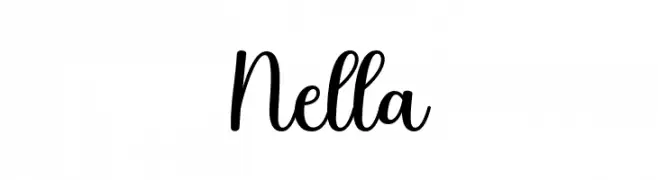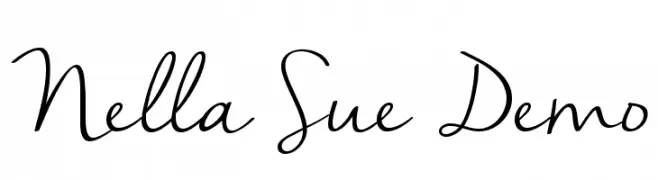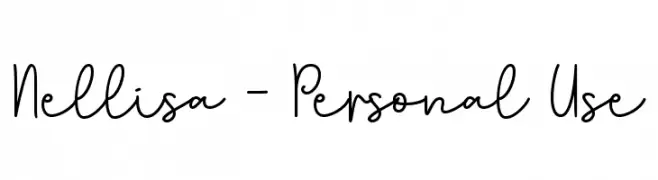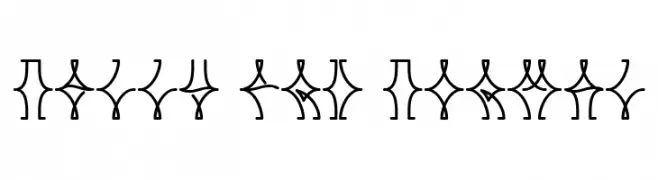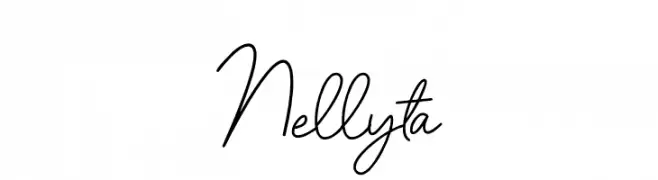
( Aulia Rahman - creativemarket.com/ARN )
A bold, dynamic script font with high contrast and flowing letterforms.
( Aulia Rahman - creativemarket.com/ARN )
A bold, dynamic script font with flowing, cursive letterforms.
( Fonts by Pista Mova )
A flowing, cursive script font with a handwritten feel and moderate contrast.
( www.jennasuedesign.com )
A flowing, cursive script font with elegant, handwritten characteristics.
A playful, handwritten-style font with a modern and whimsical touch.
( Jaye de Tunis - graffititoonsi.wordpress.com/ )
An abstract, decorative font with intricate loops and curves.
( - elecktrojaye.wordpress.com/ )
An abstract, decorative font with geometric and fluid shapes.
A flowing, cursive font with elegant, interconnected letters and a handwritten aesthetic.
A bold, expressive script font with fluid, cursive strokes and dynamic letterforms.